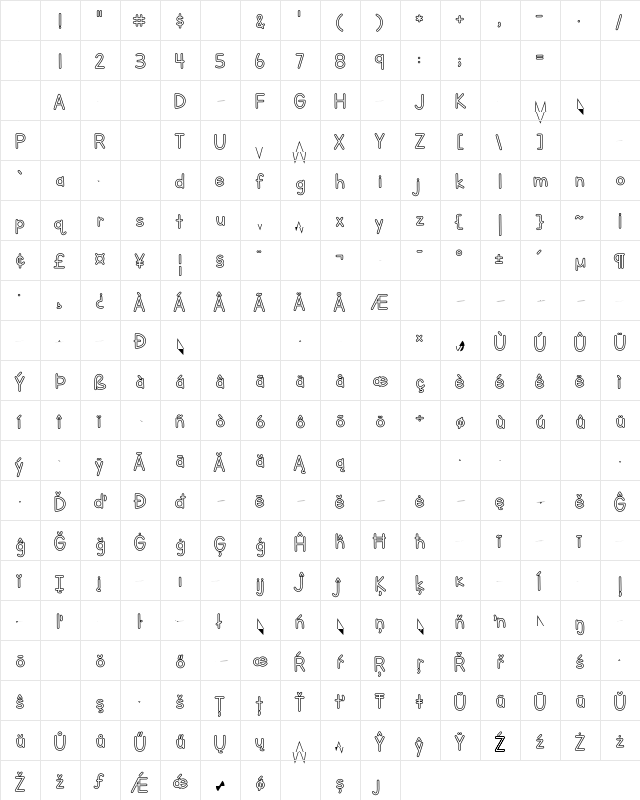
Complete Letters for Learners Outline Bo Regular glyph index. Displaying only characters natively supported by Letters for Learners Outline Bo Regular font.
Letters for Learners Outline Bo is built around its visual character rather than neutral utility - its distinctive forms are designed to make an impression at display sizes.
Font Pairing: Pair with a clean neutral sans-serif for body copy to let Letters for Learners Outline Bo's character lead without overwhelming the composition.
Pro Tip: Use Letters for Learners Outline Bo exclusively at display sizes - it was designed to be seen, not read at length. Let a neutral companion handle body copy.